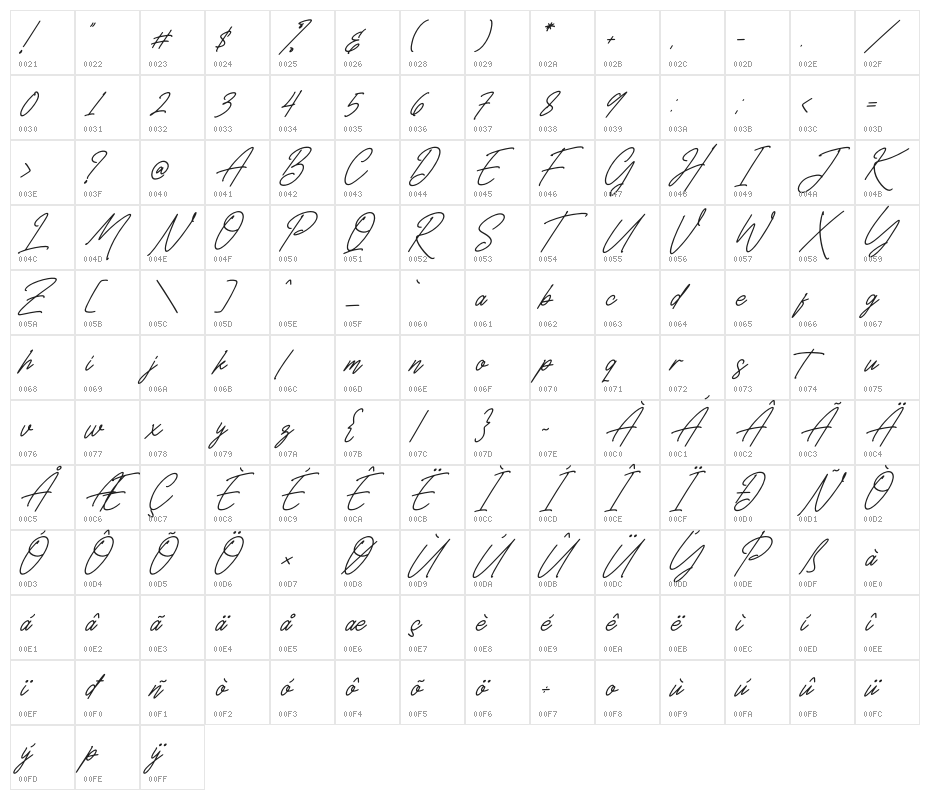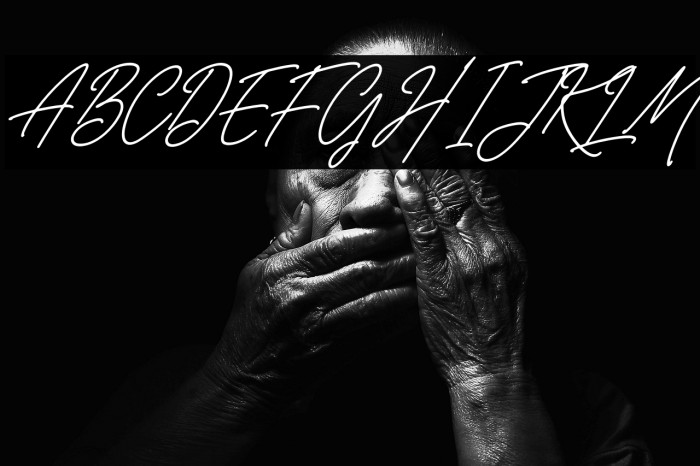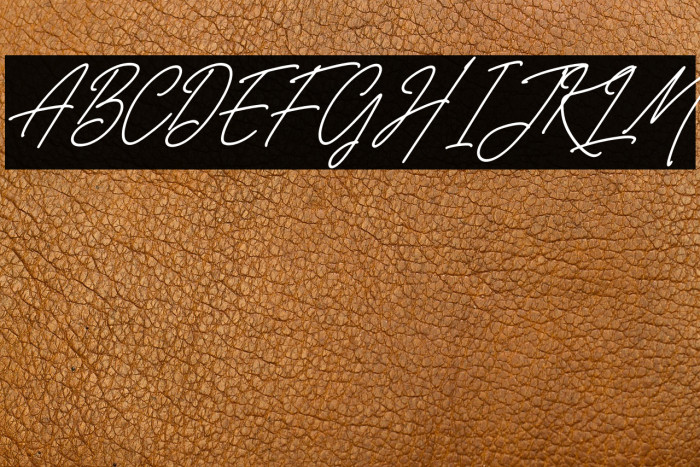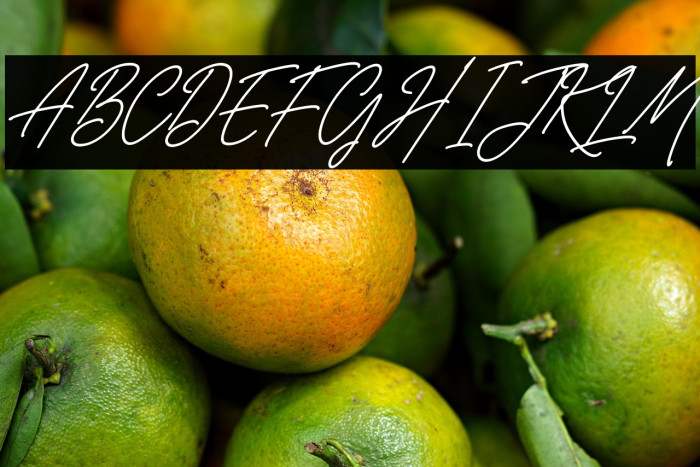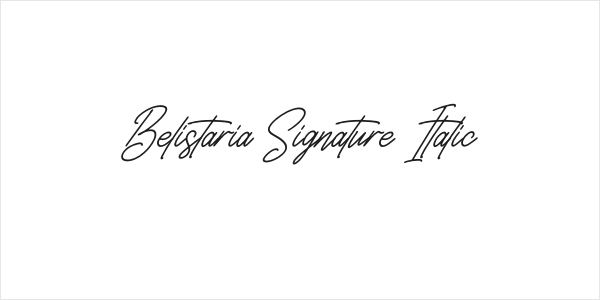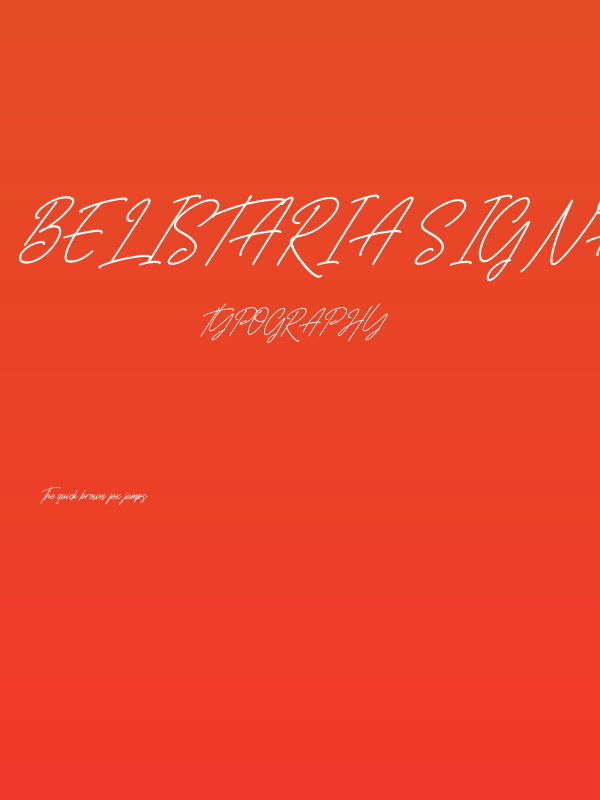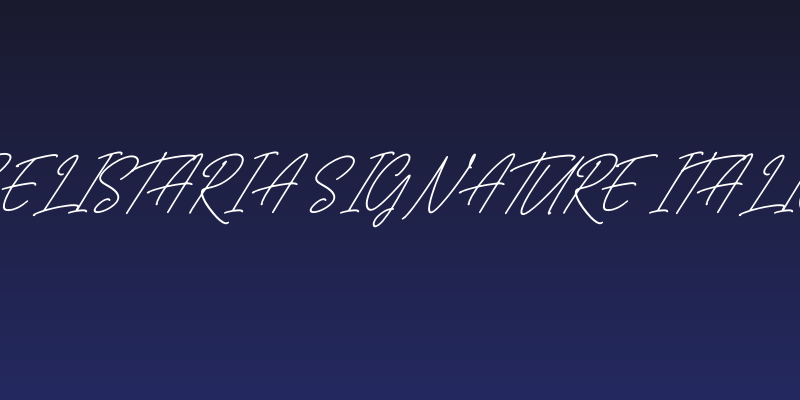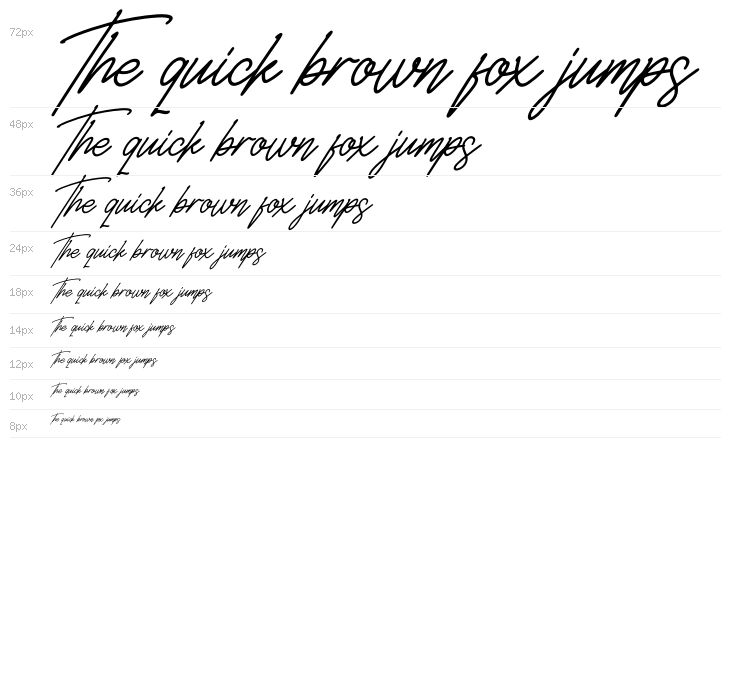
Belistaria Signature Italic Font
Belistaria Signature Italic Description
This font exudes elegance and sophistication with its flowing, cursive style. The letters are interconnected, creating a seamless and fluid appearance that mimics natural handwriting. The uppercase letters are tall and slender, while the lowercase letters maintain a consistent height, enhancing readability. The numbers and special characters are designed with the same graceful curves, ensuring a cohesive look across all text. This font is perfect for adding a personal touch to any project, with its delicate lines and artistic flair.
| Use Case | Logos, Invitations, Personal branding |
| Proposed Projects | Ideal for wedding invitations, personal branding, elegant logos, and artistic projects. |